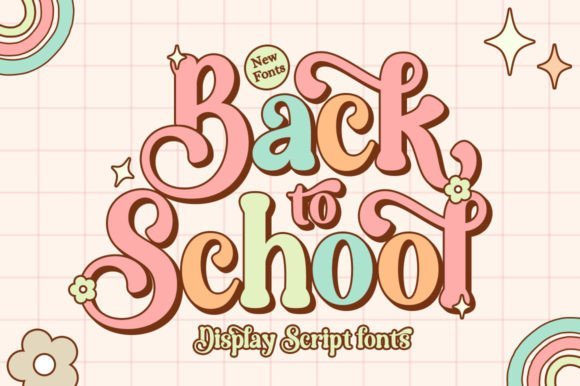
Get Ready to Grade A+ with the Back to School Font
Summer’s over, and the school bell is about to ring – but that doesn’t mean the fun has to end. For designers, the start of a new school year is the perfect excuse to refresh our creative toolboxes and experiment with new fonts. And that’s where the Back to School Font comes in – a cool, retro display font that’s sure to bring a smile to your face.
This PUA-encoded font is a treasure trove of creative possibilities, with a wide range of glyphs and alternates at your fingertips. Whether you’re working on a magazine spread, designing a logo, or crafting a brand identity, the Back to School Font is the perfect companion for any project that demands a touch of nostalgia and whimsy.
Key Features of “Back to School Font”
- Font Family: A unique, custom-designed font family specifically created for educational and back-to-school themes.
- Unique Characteristics: The font features playful, rounded shapes and subtle textures, evoking a sense of nostalgia and warmth, perfect for educational and back-to-school materials.
Back to School Font Review
I recently had the chance to work with the “Back to School Font” and I wanted to share my honest review.
- Playful and whimsical vibe: The font is perfect for creating a lighthearted and fun atmosphere, making it ideal for back-to-school materials, educational websites, or kid-friendly products.
- Highly customizable: The font comes with a range of styles and weights, allowing designers to easily experiment and find the perfect look for their project.
- Well-suited for digital media: The font’s pixel-perfect design ensures it looks great on both screen and print, making it a great choice for digital projects.
- Limited professional applications: While the font is great for playful projects, it may not be suitable for more formal or professional designs.
- Not ideal for small text: Due to its playful nature, the font may not be the best choice for small text or body copy, where readability is crucial.
Overall, I think the “Back to School Font” is a great choice for designers looking to add a touch of whimsy to their projects. While it may not be suitable for every project, it’s a fun and versatile font that can add a lot of character to the right design.
The Back to School Font is perfect for creating educational materials, such as lesson plans, worksheets, and certificates. It’s also great for designing school-themed invitations, party decorations, and other materials.
To get the most out of the Back to School Font, use it in combination with other educational-themed graphics and colors. Experiment with different font sizes and styles to create a visually appealing design. You can also use it in conjunction with other fonts to create a unique and eye-catching look.